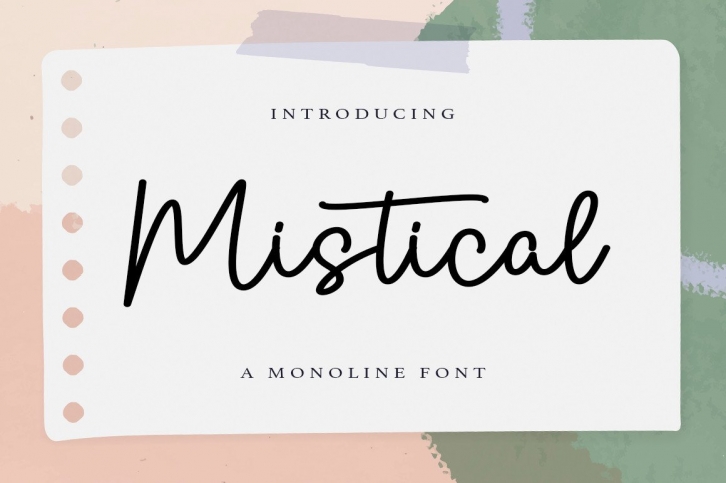
Mistical is an elegant script font. Not too thin and not too thick, balanced and varied, this font was designed to enhance the beauty of your projects. Mistical is PUA encoded which means you can access all of the glyphs and swashes with ease!